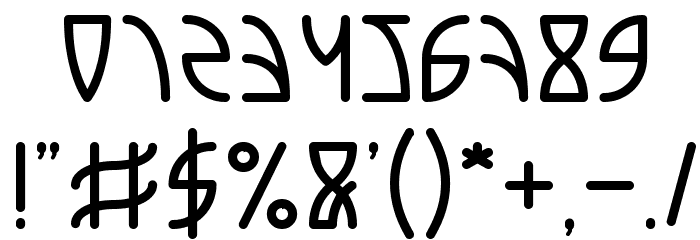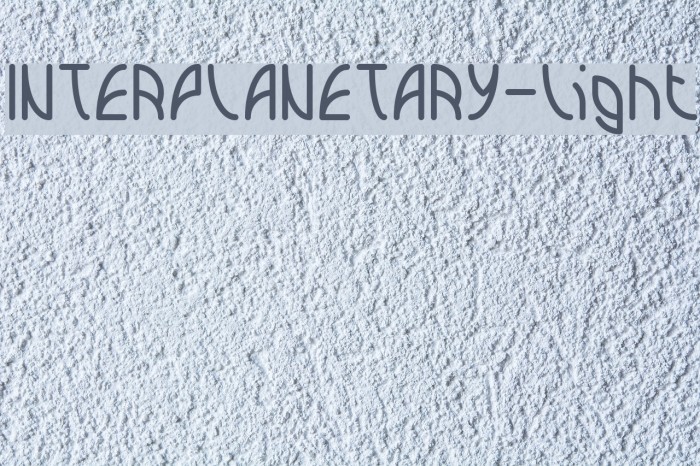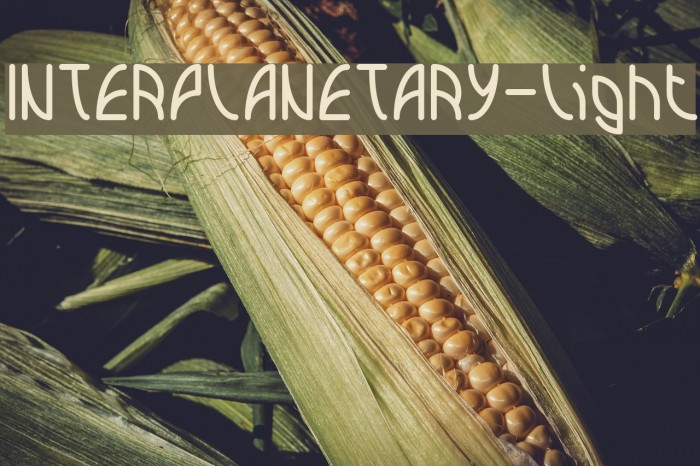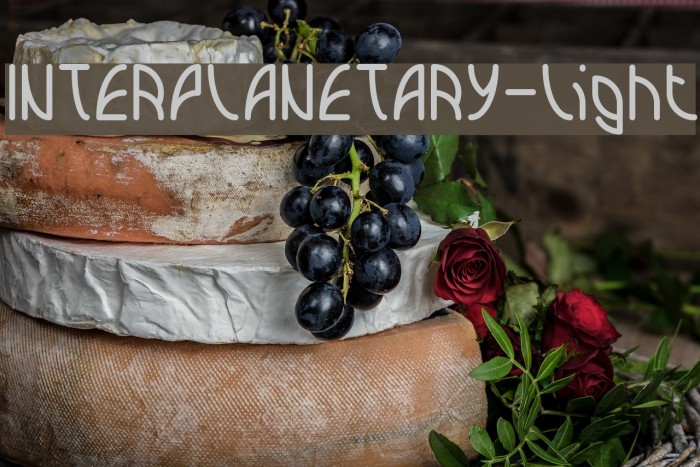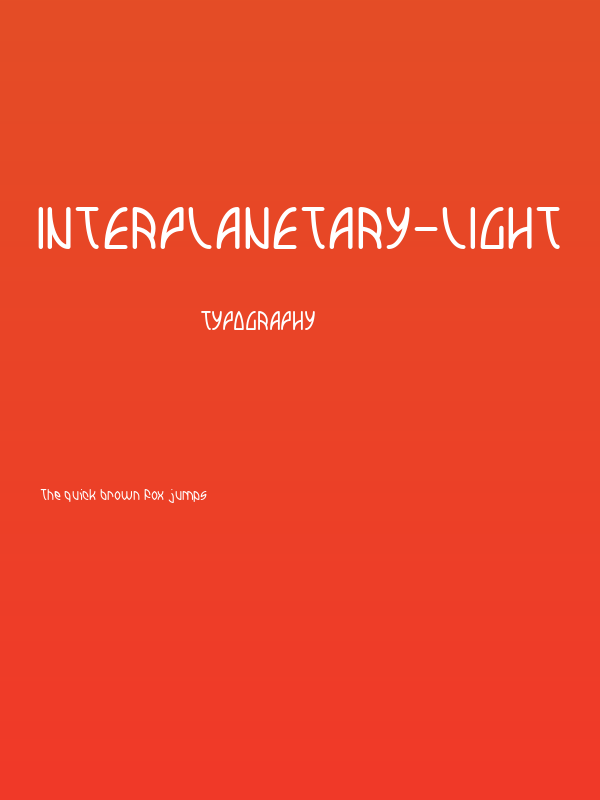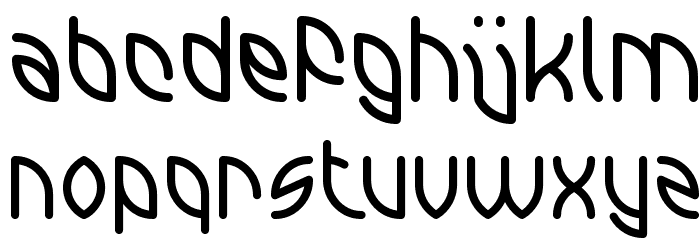
INTERPLANETARY-Light Font
INTERPLANETARY-Light Description
This font features a futuristic and geometric design, characterized by its rounded and smooth curves. The uppercase letters have a distinct, almost alien-like appearance with unique shapes that deviate from traditional letterforms. The lowercase letters maintain a consistent style, with a playful yet sophisticated look. Numbers and special characters are designed to match the overall aesthetic, making them stand out with their bold and clear forms. The font's style is ideal for projects that require a modern and innovative touch, such as sci-fi themed designs or tech-related branding.
Proposed ProjectsIdeal for sci-fi themed designs, tech branding, futuristic posters, and innovative product packaging.